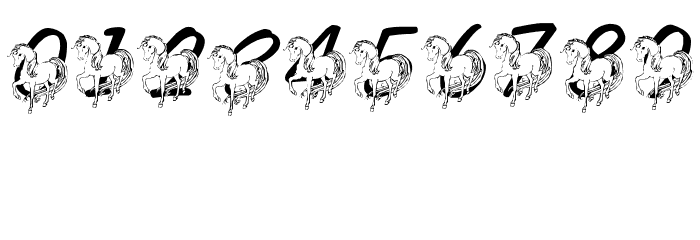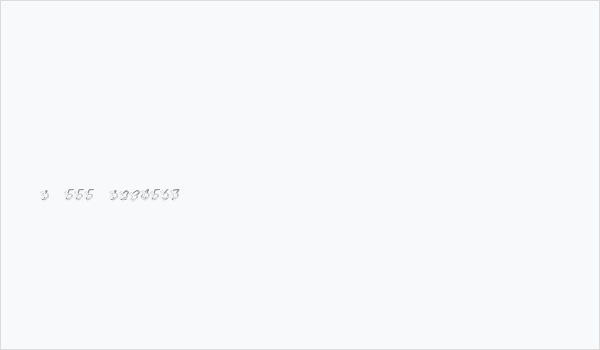
LMS Starlight Font
LMS Starlight Description
This decorative font features a whimsical design where each character is accompanied by an intricate illustration of a horse. The numbers are bold and slightly slanted, adding a dynamic feel to the overall appearance. The detailed horse illustrations add a playful and unique touch, making this font stand out for creative projects. The combination of bold numerals with artistic elements makes it ideal for eye-catching designs.
| Proposed Projects | Ideal for creative projects such as children's book covers, fantasy-themed event invitations, or playful branding materials. |